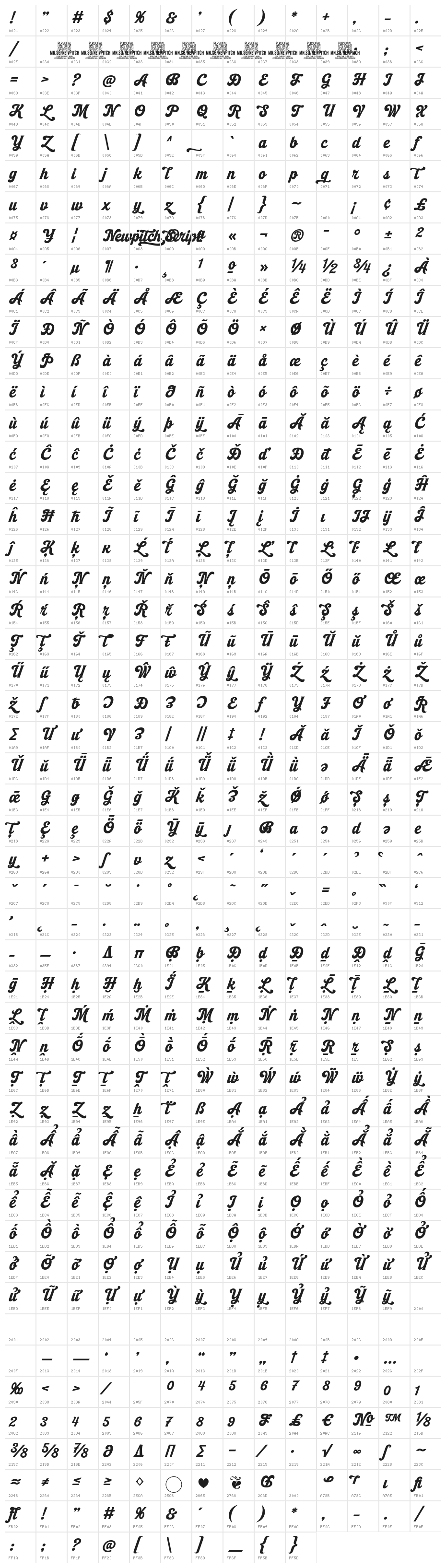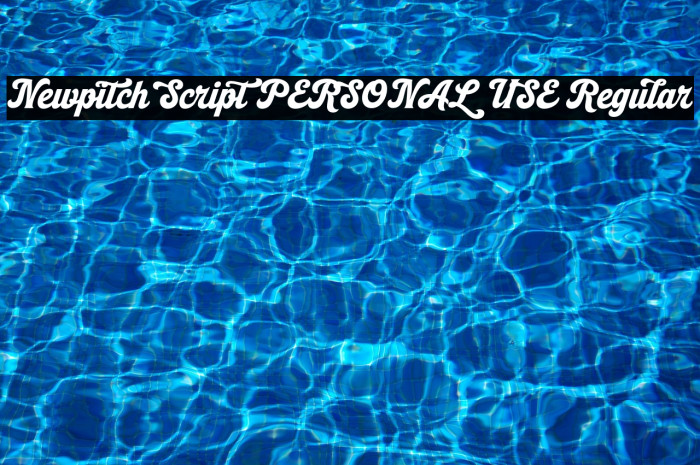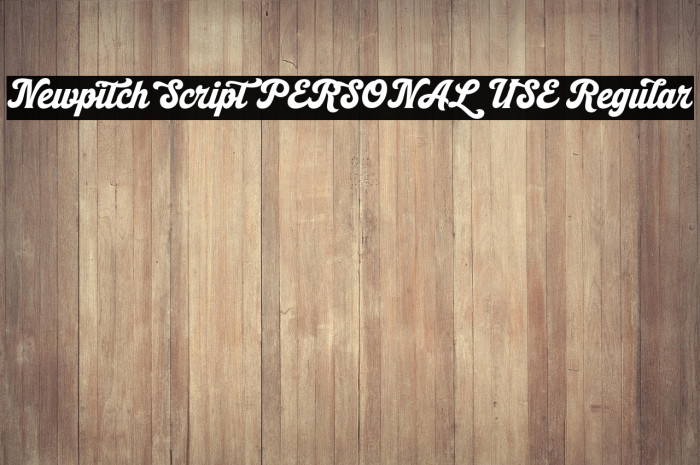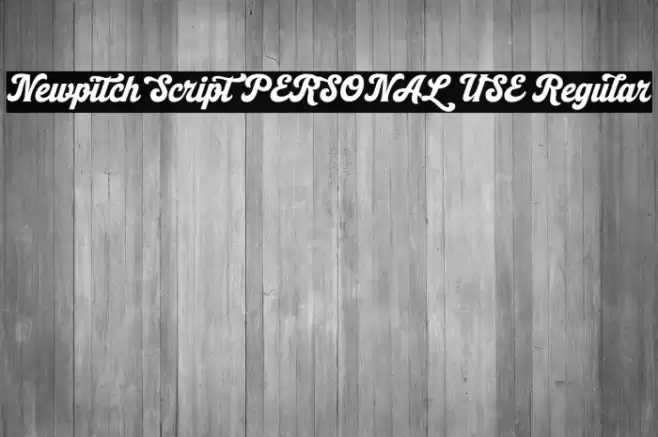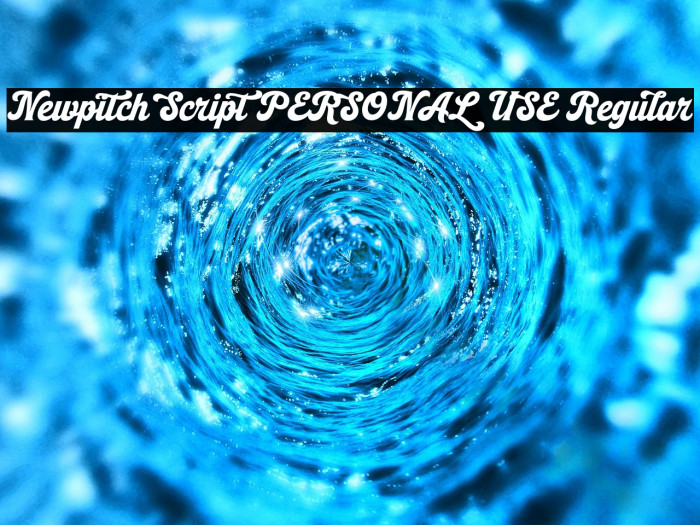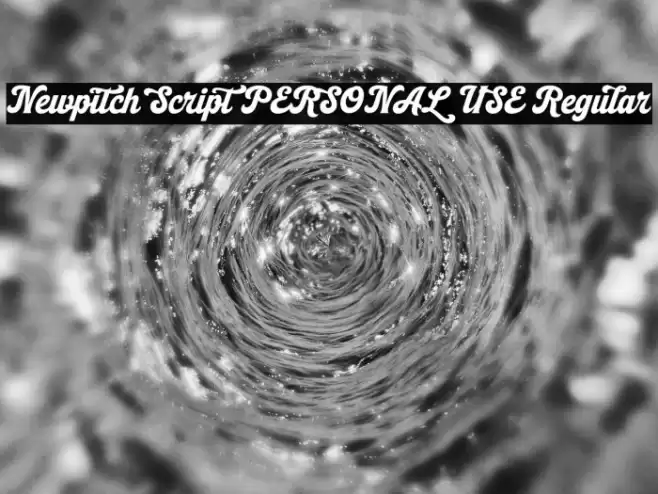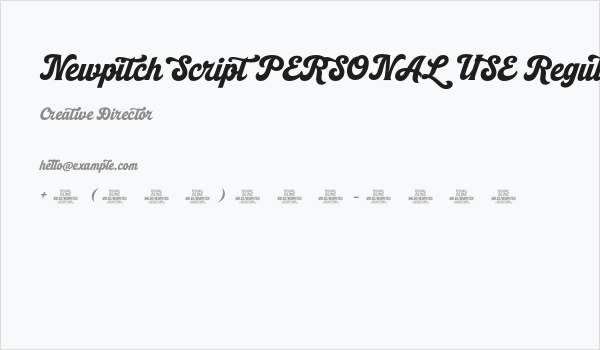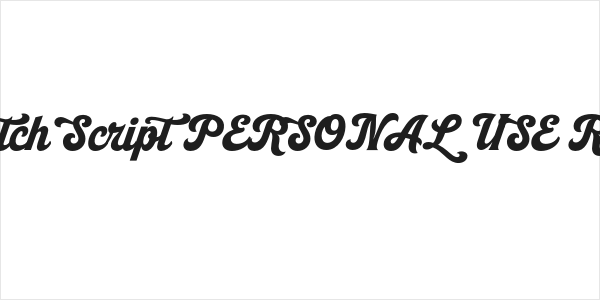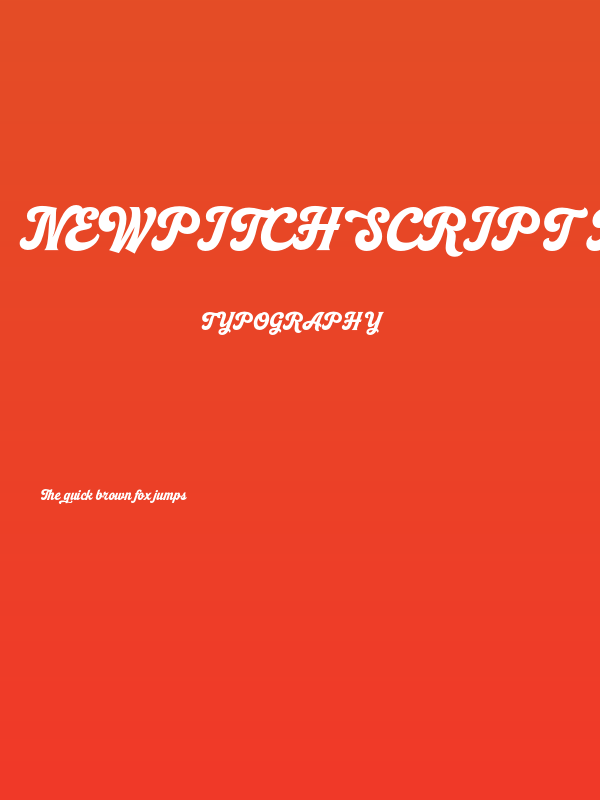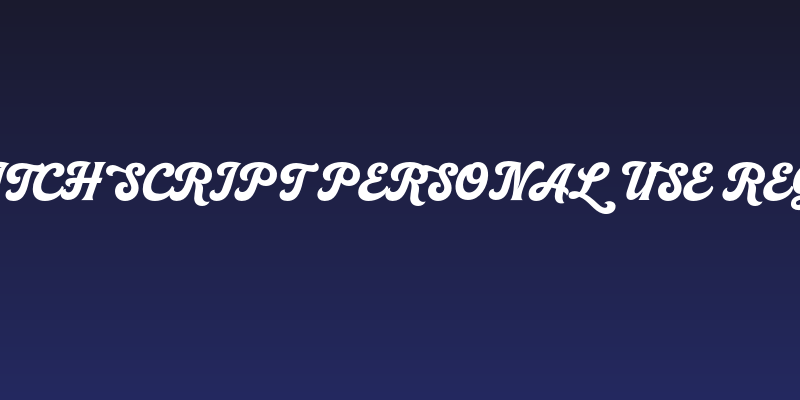
Newpitch Script PERSONAL USE Regular Font
Newpitch Script PERSONAL USE Regular Description
This font features a bold and flowing script style, characterized by its thick, sweeping strokes and elegant curves. The uppercase letters are particularly ornate, with flourishes that add a sense of movement and sophistication. The lowercase letters maintain a consistent style, offering a smooth transition between characters. The numbers and special characters are designed to complement the overall script aesthetic, ensuring a cohesive look across all text. This font exudes a sense of elegance and flair, making it ideal for projects that require a touch of sophistication and style.